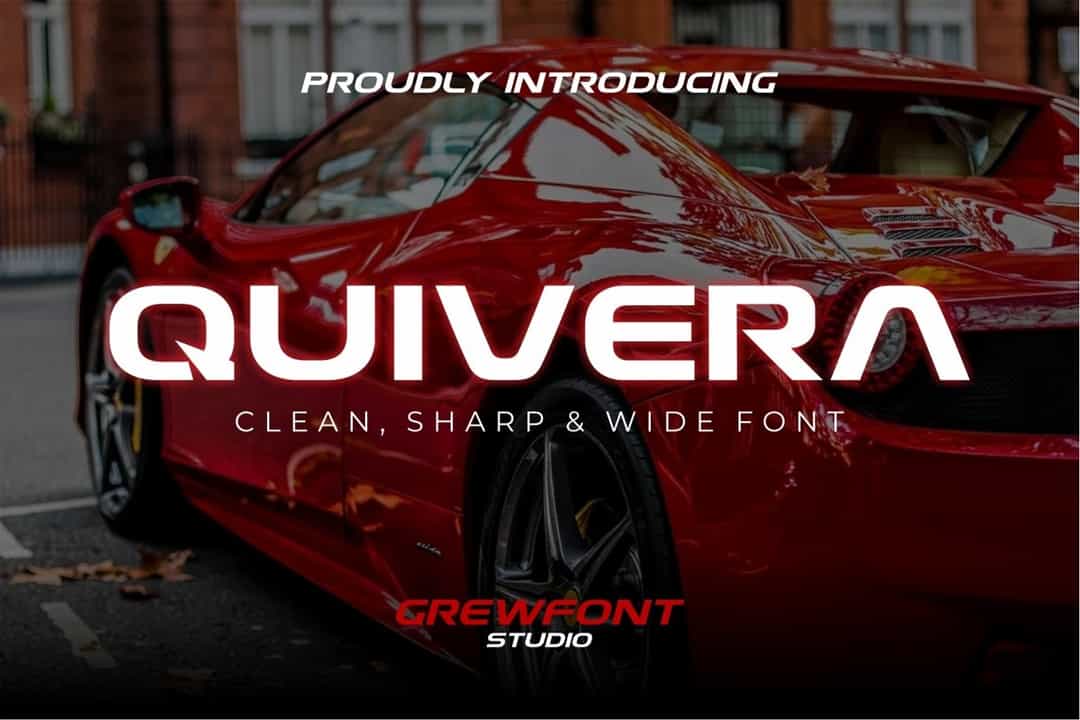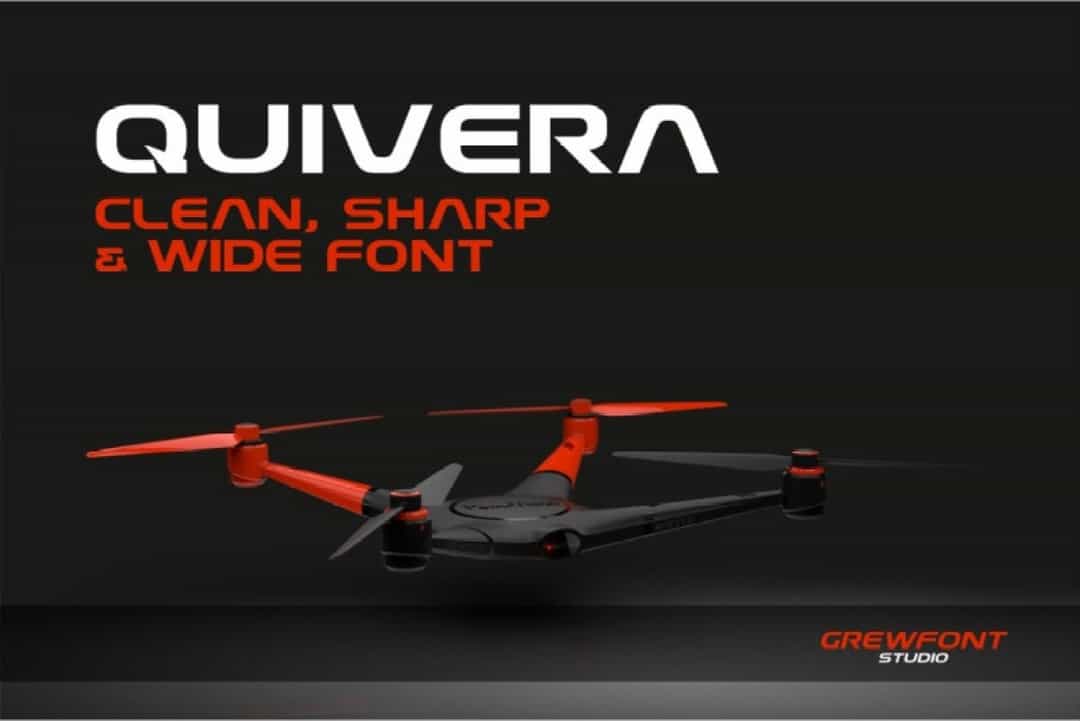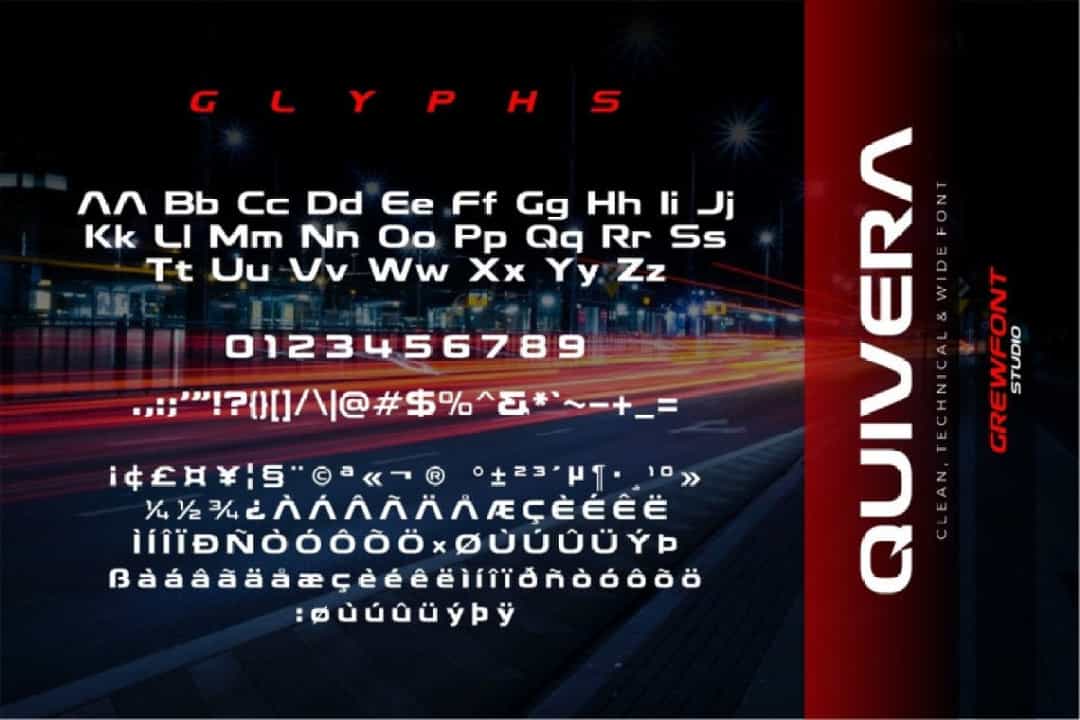
Quivera font can be described in one word – elegant, but at the same time is quite playful and rich, suitable for almost any screen-based headline, be it large or small, as well as text with minimal and maximum differentiation. The Quivera will be simply gorgeous wherever it will be used: when printed or when applied to web animations or any other purpose!